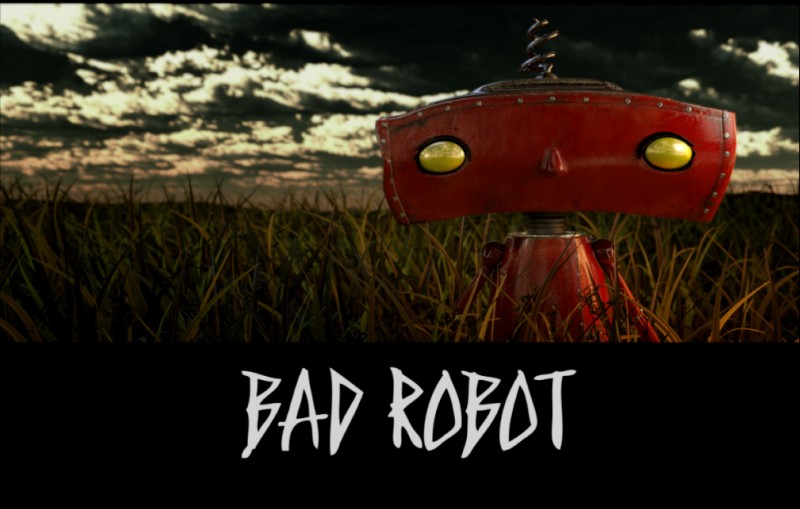
Bad Robot Logo Font
ActionBad Robot is a film production company founded by J.J. Abrams, known for producing popular sci-fi, action, and suspense films such as "Star Trek," "Mission: Impossible," and "Star Wars: The Force Awakens."
The text "Bad Robot" in the image features a slightly altered version of FF DuDuchamp, a script font designed by Belgian type designer Dung van Meerbeeck in 1992 for FontFont. You can view and download the font here.